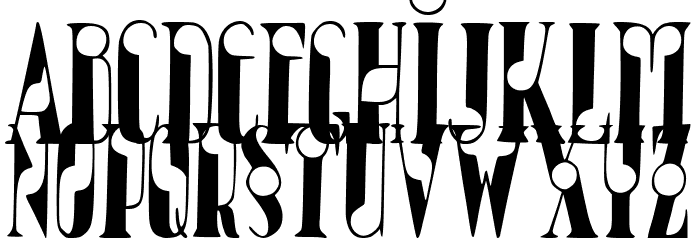
JMHBolitaCaps-Regular Font
This font features a bold and striking design with high contrast between thick and thin strokes. The characters are tall and narrow, giving it a condensed appearance. The unique style incorporates sharp angles and curves, creating a dynamic and eye-catching look. The uppercase letters have a distinctive flair, with some characters featuring exaggerated serifs and terminals. This font is ideal for making a strong visual impact and can be used to convey a sense of elegance and modernity.
A bold, high-contrast font with a condensed and dynamic style.
- Font: JMHBolitaCaps-Regular
by joorgemoron - Weight: Regular
- Proposed Projects: Ideal for headlines, posters, branding, and logo design where a strong visual impact is desired.
- Width: Condensed